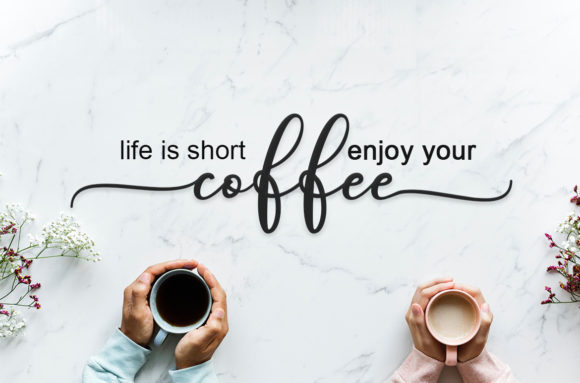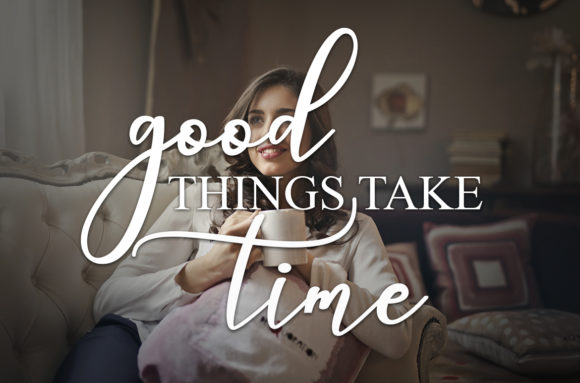
Natasha Script Font
db-ku.com - Script & Handwritten -- The Natasha is a fresh and modern script font. It has a classy calligraphy style and includes amazing decorative characters.